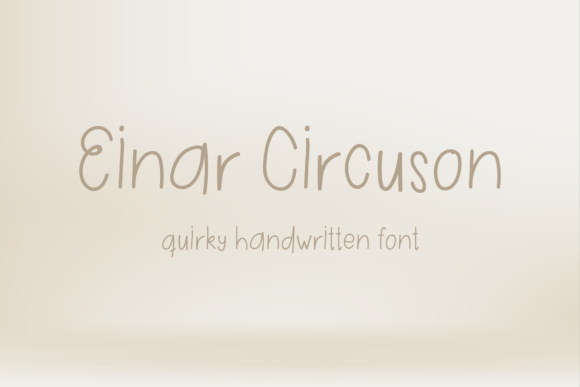
Journey through a world of inked emotions with Einar Circuson, a script font that dances across the page like a whimsical tattoo. Crafted by the talented Cotton White Studio, this font is a work of art that will transform your words into captivating expressions.
Einar Circuson invites you to explore a realm of creativity, where your words become tattoos upon the heart. Dive into a sea of customization options, whether you're crafting digital notes, invitations, blog posts, or social media captions. This font is a chameleon of style, adapting effortlessly to your unique vision.
Feel the warmth of Einar Circuson as it embraces your journal entries, transforming them into intimate confessions whispered onto paper. Your digital notes will burst with personality, adorned with Einar Circuson's lively strokes. Scrapbooking takes on a new dimension, as your memories are etched into the pages with a touch of inked artistry.
Envision wedding invitations adorned with Einar Circuson's swirling lines, setting the tone for a day filled with love and laughter. Elevate your branding with a logo that speaks to your audience, leaving an unforgettable impression. Blog posts and Instagram captions will come alive, captivating readers with a visual symphony of words.
Step into the realm of Einar Circuson and discover a font that is both timeless and contemporary, a fusion of classic elegance and modern flair. Its versatility knows no bounds, effortlessly complementing a myriad of design aesthetics. From vintage-inspired creations to minimalist masterpieces, Einar Circuson seamlessly blends into your vision.
With Einar Circuson, the possibilities are endless, limited only by the boundaries of your imagination. Embrace this font as your creative companion, a faithful ally in your artistic endeavors. Let Einar Circuson be your ink, flowing from your fingertips to create a tapestry of words that resonate with emotion and style.
Don't just download Einar Circuson; adopt it as your creative muse. Unleash the artist within, let your words dance upon the wings of this font, and watch as they transform into masterpieces that speak to the soul. Einar Circuson is more than just a font; it's an experience, a journey into the realm of inked artistry.